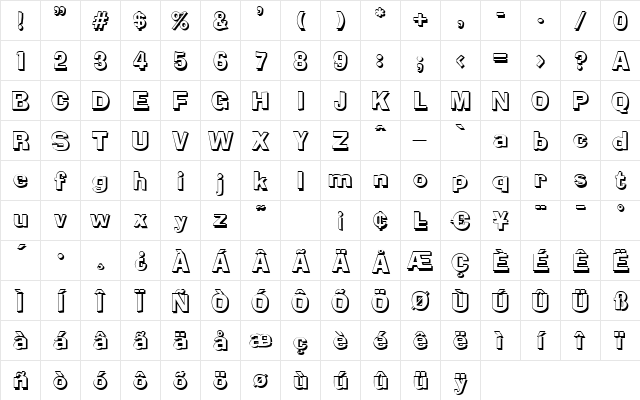
AlexisBeckerShadow Normal
Design Context for AlexisBeckerShadow
AlexisBeckerShadow is built around its visual character rather than neutral utility - its distinctive forms are designed to make an impression at display sizes.
Suited to editorial headers, event branding, and any context where the font itself is part of the message.
Font Pairing: Pair with a clean neutral sans-serif for body copy to let AlexisBeckerShadow's character lead without overwhelming the composition.
Pro Tip: Use AlexisBeckerShadow exclusively at display sizes - it was designed to be seen, not read at length. Let a neutral companion handle body copy.